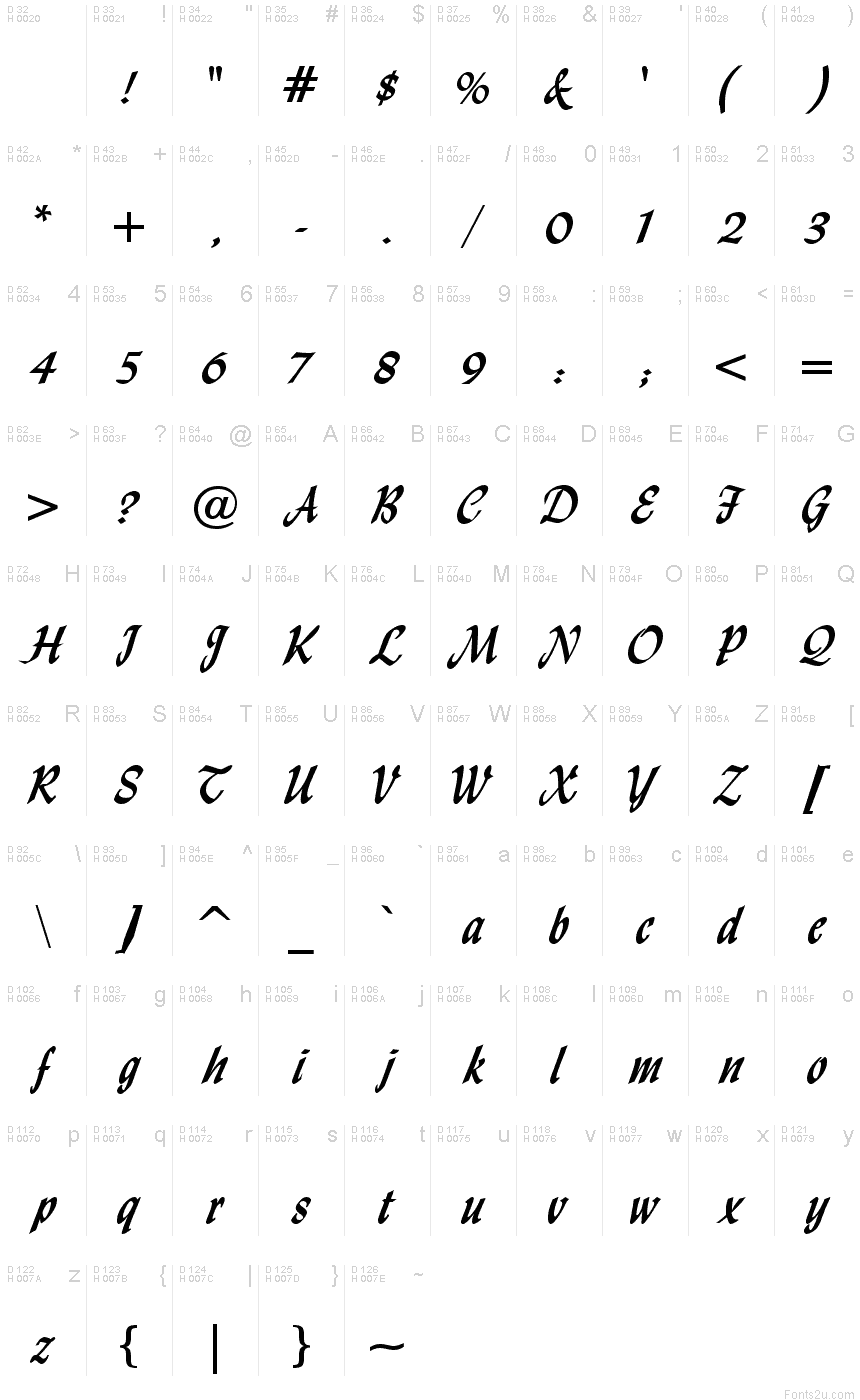
Lynda Cursive Bold
Lynda Cursive Bold designed in 1994 by Bay Animation Inc. is a calligraphy font with a long, forward-leaning rhythm and smooth connecting strokes. Its flowing script keeps the forms moving in one continuous sweep, so the name reads more like a hand-drawn signature than separate letters.
Lynda Cursive Bold suits wedding invitations, greeting cards, certificate titles, stationery, boutique packaging, and logo accents because the script carries a formal handwritten presence without losing energy. It also fits short quote layouts and event signage where a polished script line needs to feel personal and decorative.